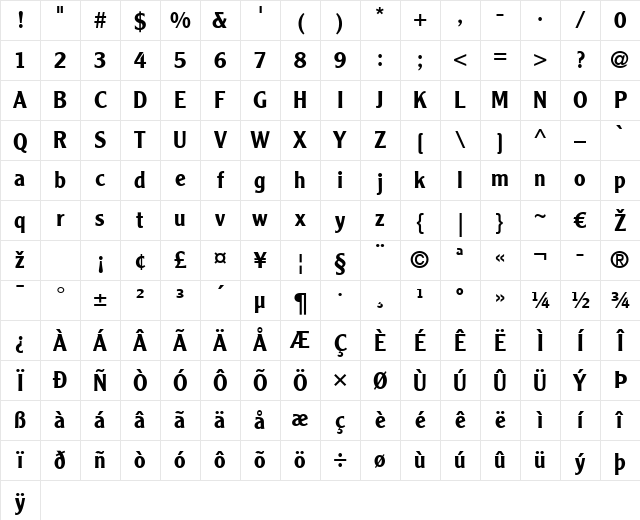
Complete ClearfaceGothic LT Light Bold glyph index. Displaying only characters natively supported by ClearfaceGothic LT Light Bold font.
ClearfaceGothic LT Light takes a clean, functional approach - its unadorned letterforms prioritise legibility and work reliably across screen and print environments. Its bold stroke weight gives it real presence on the page.
Font Pairing: Use ClearfaceGothic LT Light for headlines alongside a lighter-weight sans or serif for body copy to establish clear visual hierarchy.
Pro Tip: Use ClearfaceGothic LT Light with generous tracking and line-height for the most luxurious effect - light sans-serifs reward spacious, considered layouts.